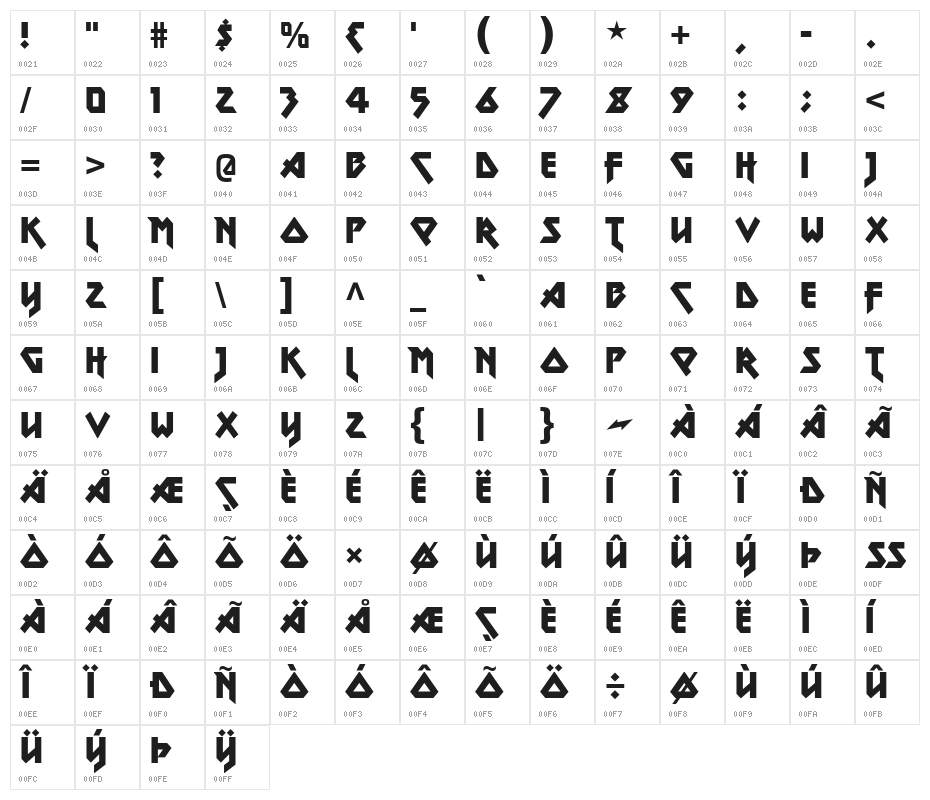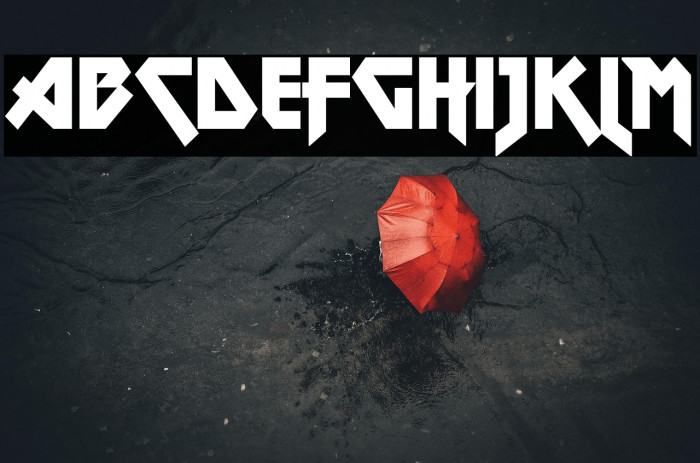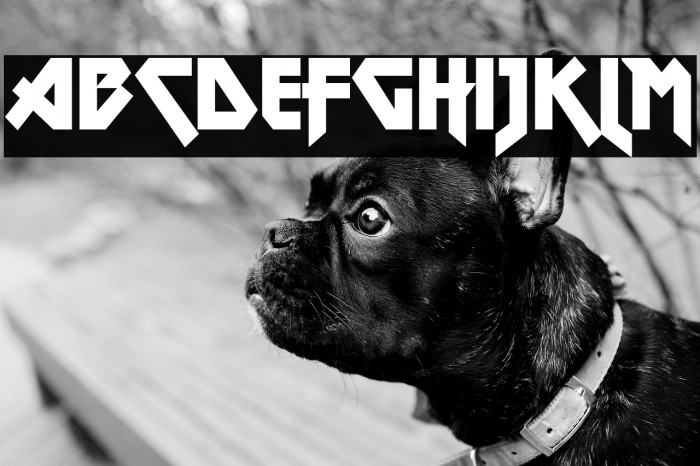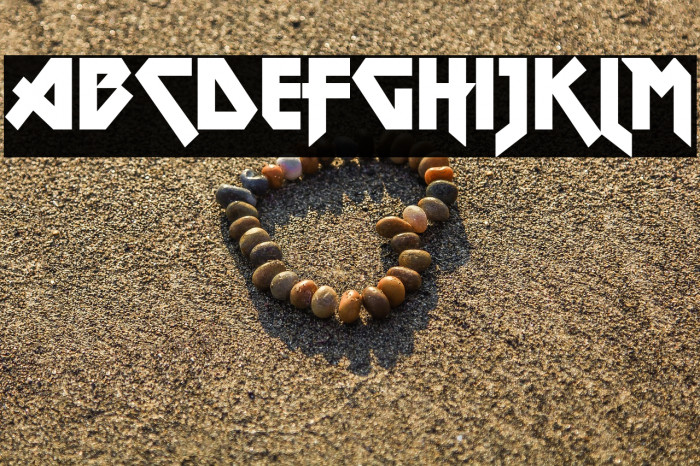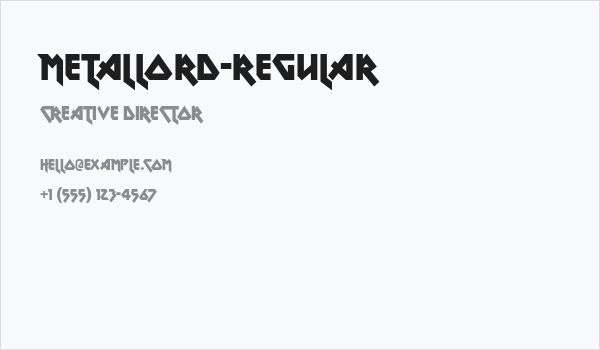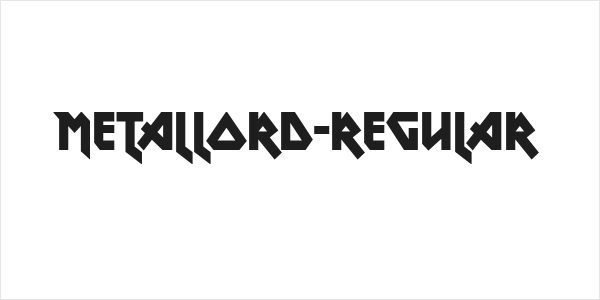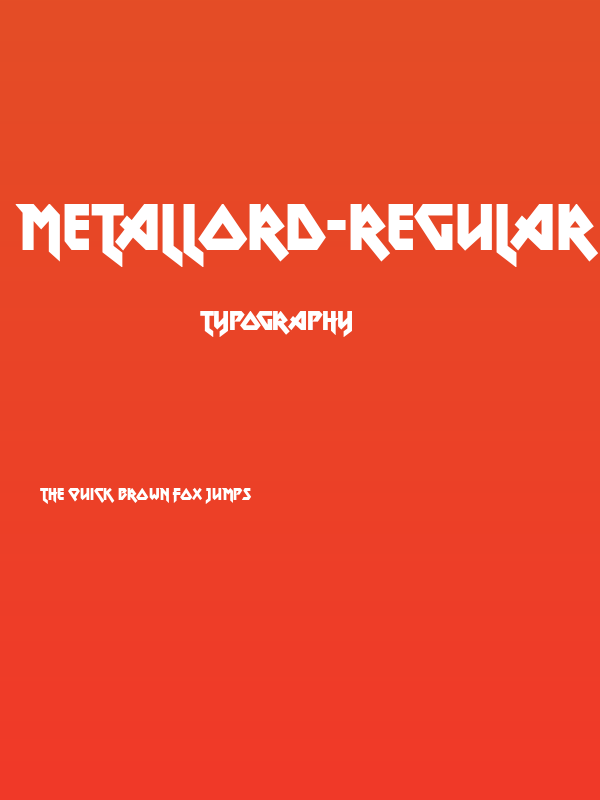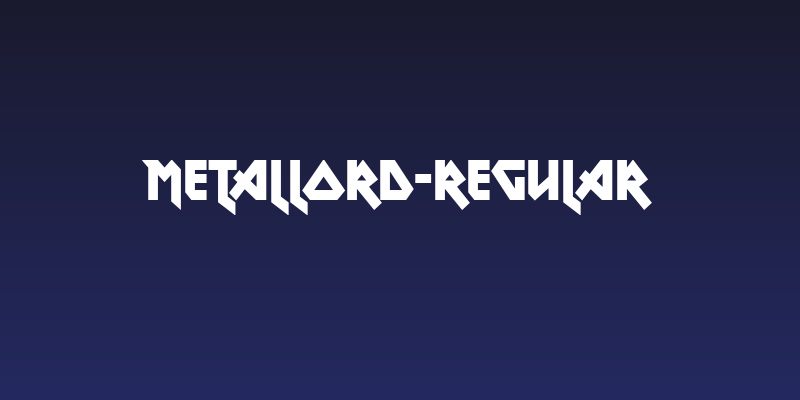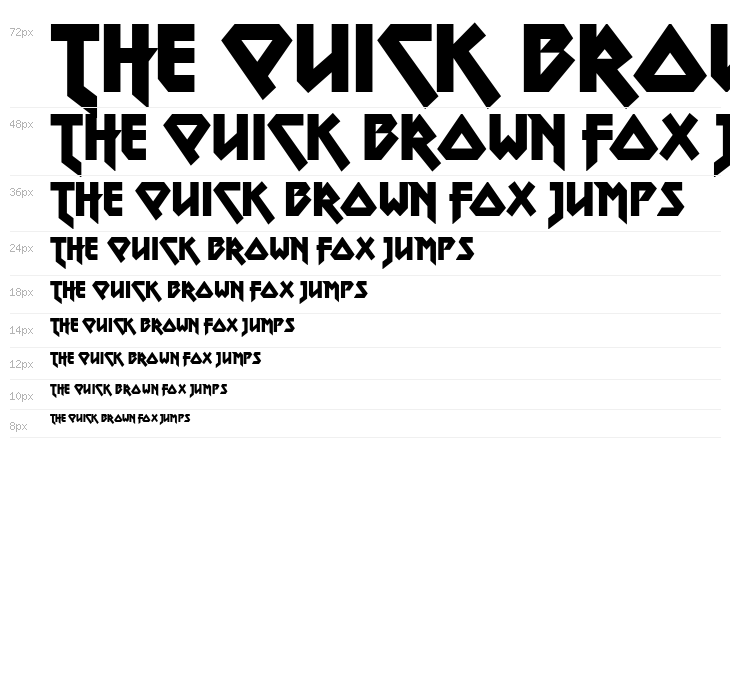
MetalLord-Regular Font
MetalLord-Regular Description
This font features a bold, angular design with sharp edges and geometric shapes, reminiscent of heavy metal and rock aesthetics. The uppercase and lowercase letters maintain a consistent style, with each character displaying a unique, edgy form. The numbers and special characters follow the same bold and striking design, making the font ideal for impactful and attention-grabbing text. The overall appearance is aggressive and dynamic, suitable for projects that require a strong visual presence.
| Proposed Projects | Ideal for music album covers, band logos, event posters, and merchandise related to rock or metal themes. |